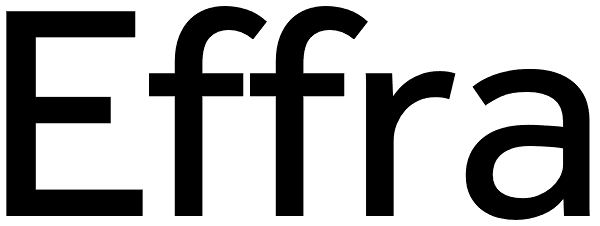
Effra
The Effra font family has its roots in one of the earliest sans-serif designs commercially available, Caslon Junior, from 1816. Our design is updated for contemporary use, and has been expanded to our Standard character set. While it is not strictly...